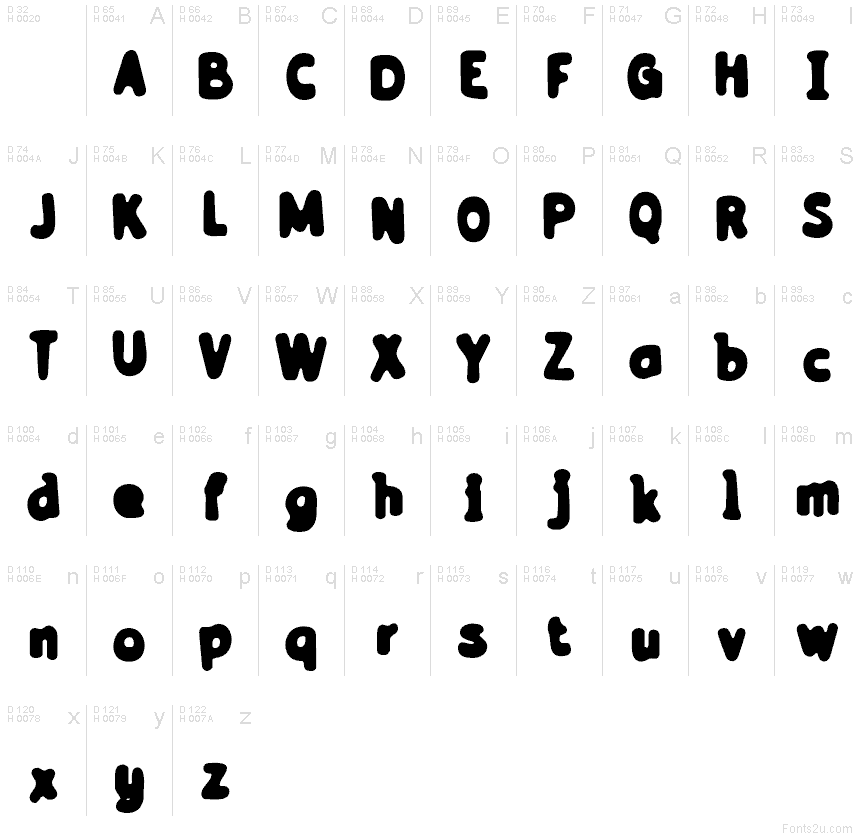
CS Boopie Drawn font by Craft Supply Co. is a free bold cartoon font that leans into a squishy, hand-drawn vibe. Built within the CS Boopie family, its inky, pillowy forms swell and wobble just enough to feel human—thick strokes, soft corners, and a playful bounce that reads loud without shouting. The letters cluster with a friendly snugness, creating chunky silhouettes that pop like stickers or candy-wrapper lettering.
Using CS Boopie Drawn, headlines snap to attention for kids’ packaging, birthday invites, stickers, toy branding, YouTube thumbnails, pop-up signage, and playful merch. This free font shines when you go big, letting the blobby contours breathe and show their charm. Pair it with a clean rounded sans for body copy, and keep tracking slightly open to emphasize its bubbly rhythm.